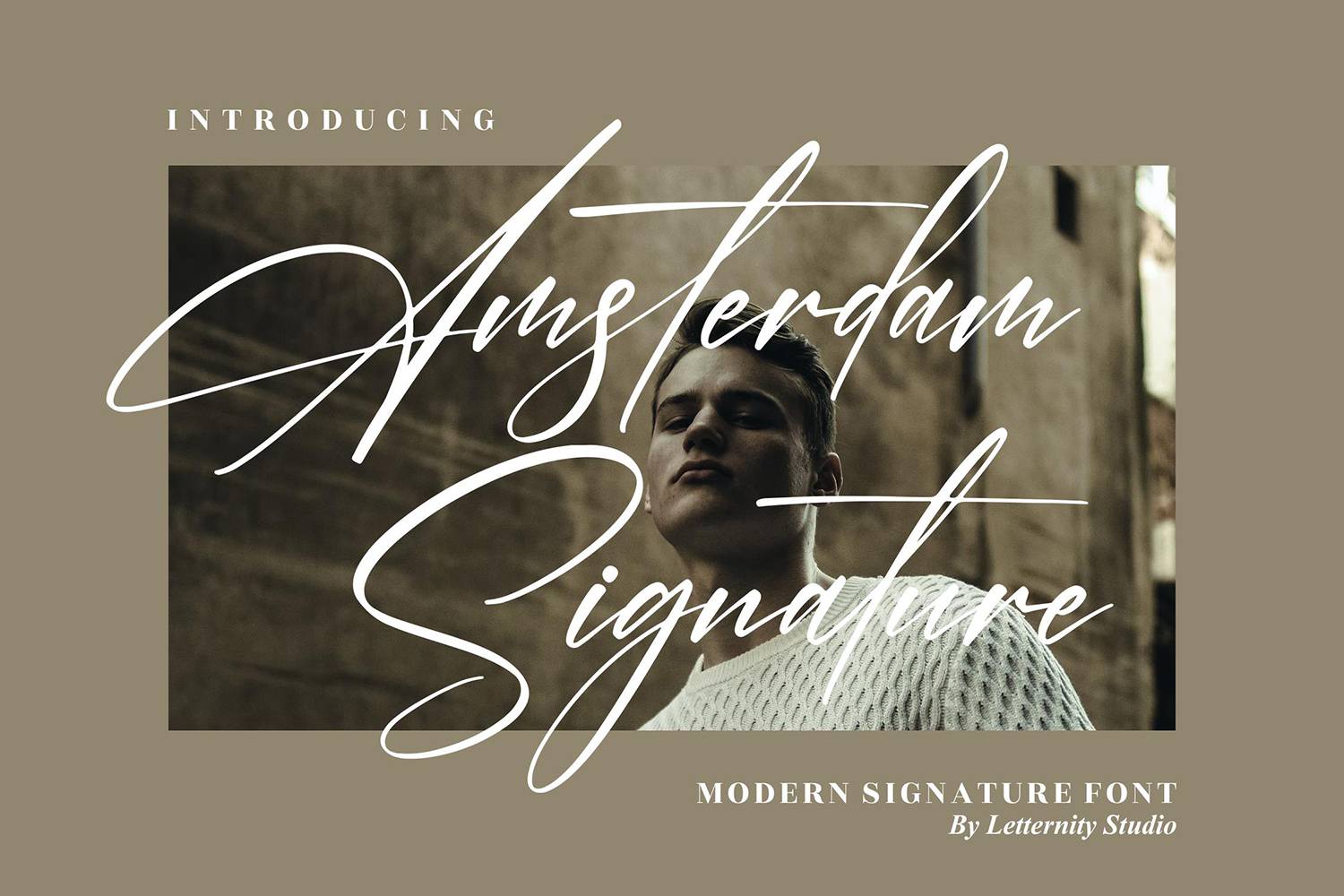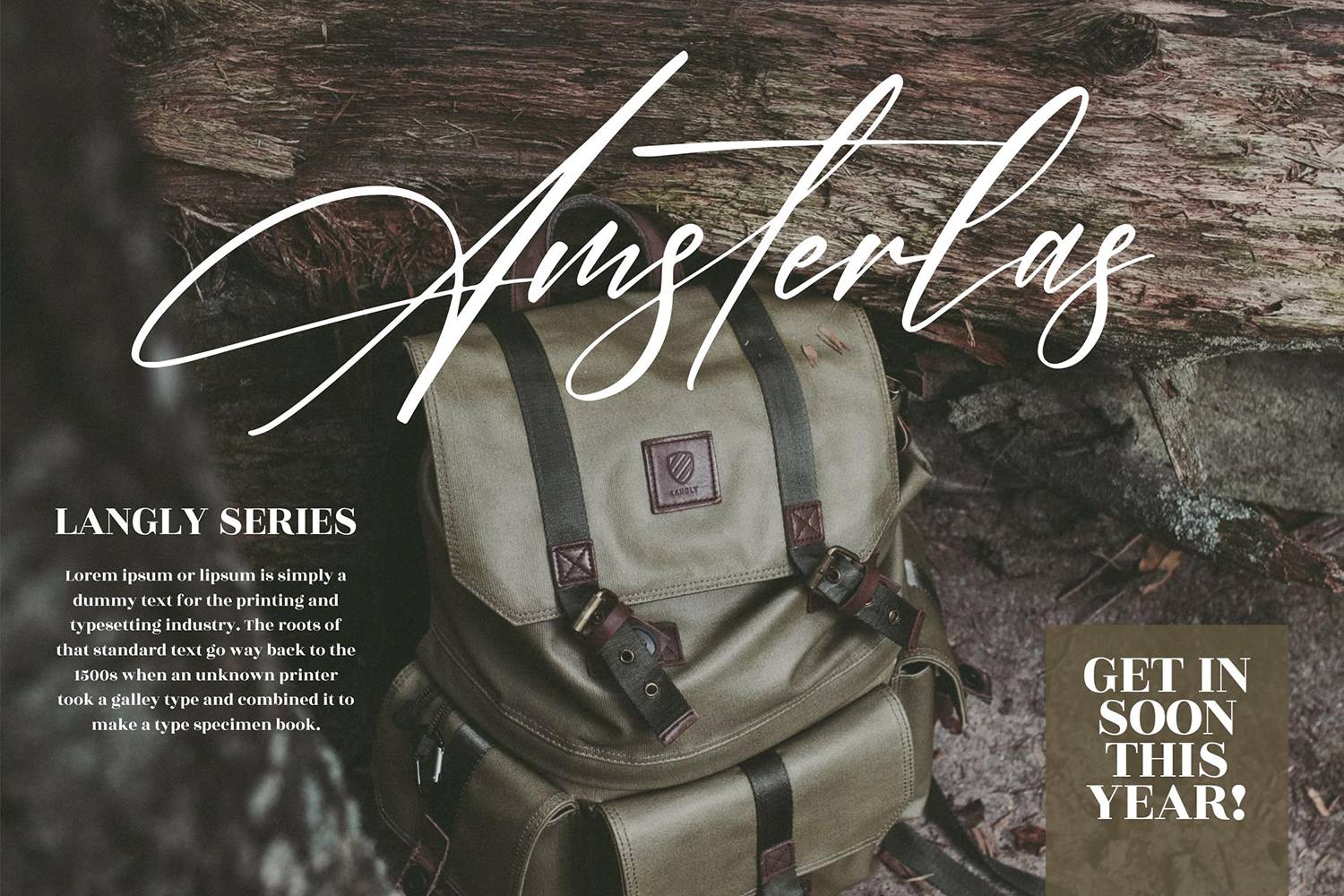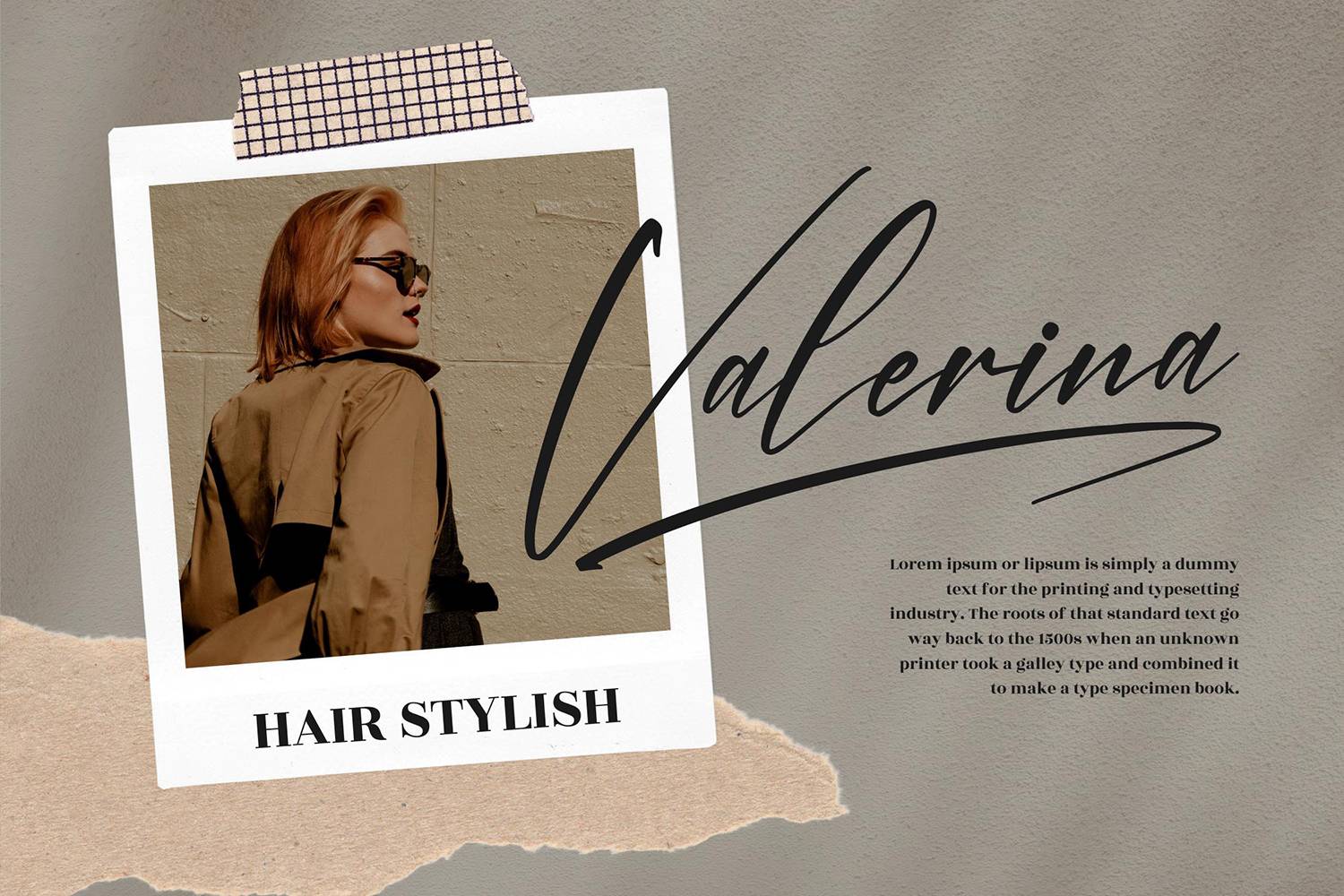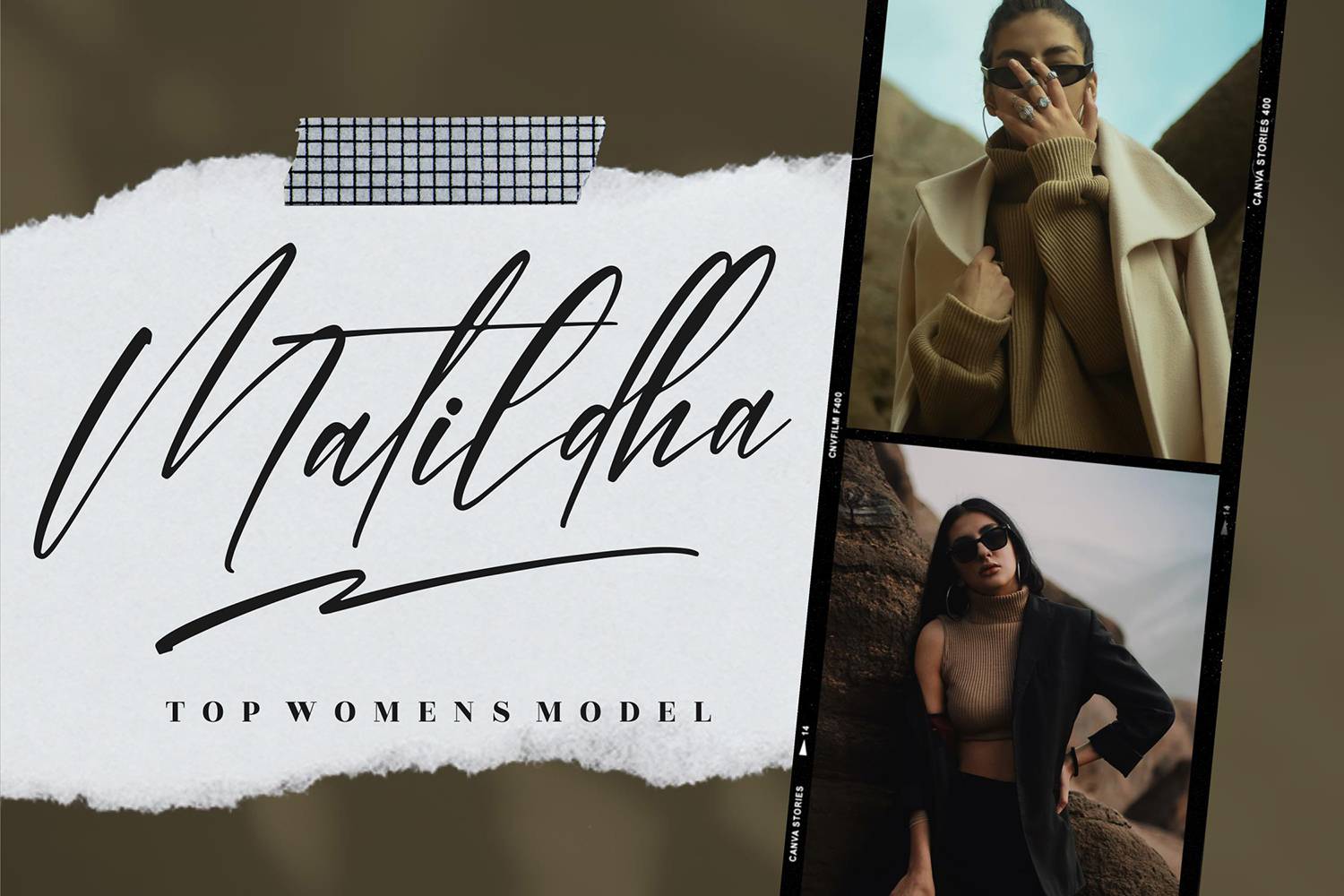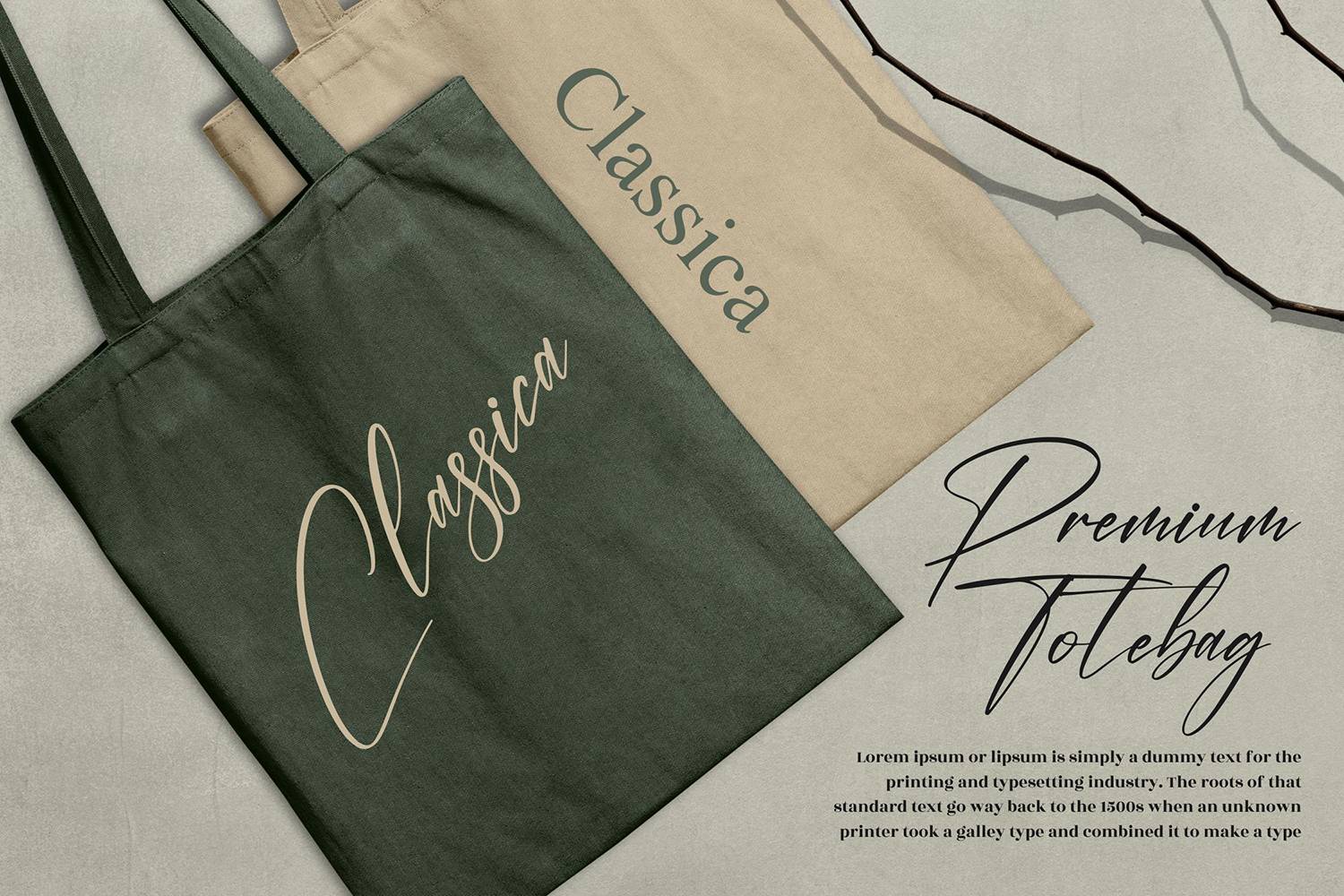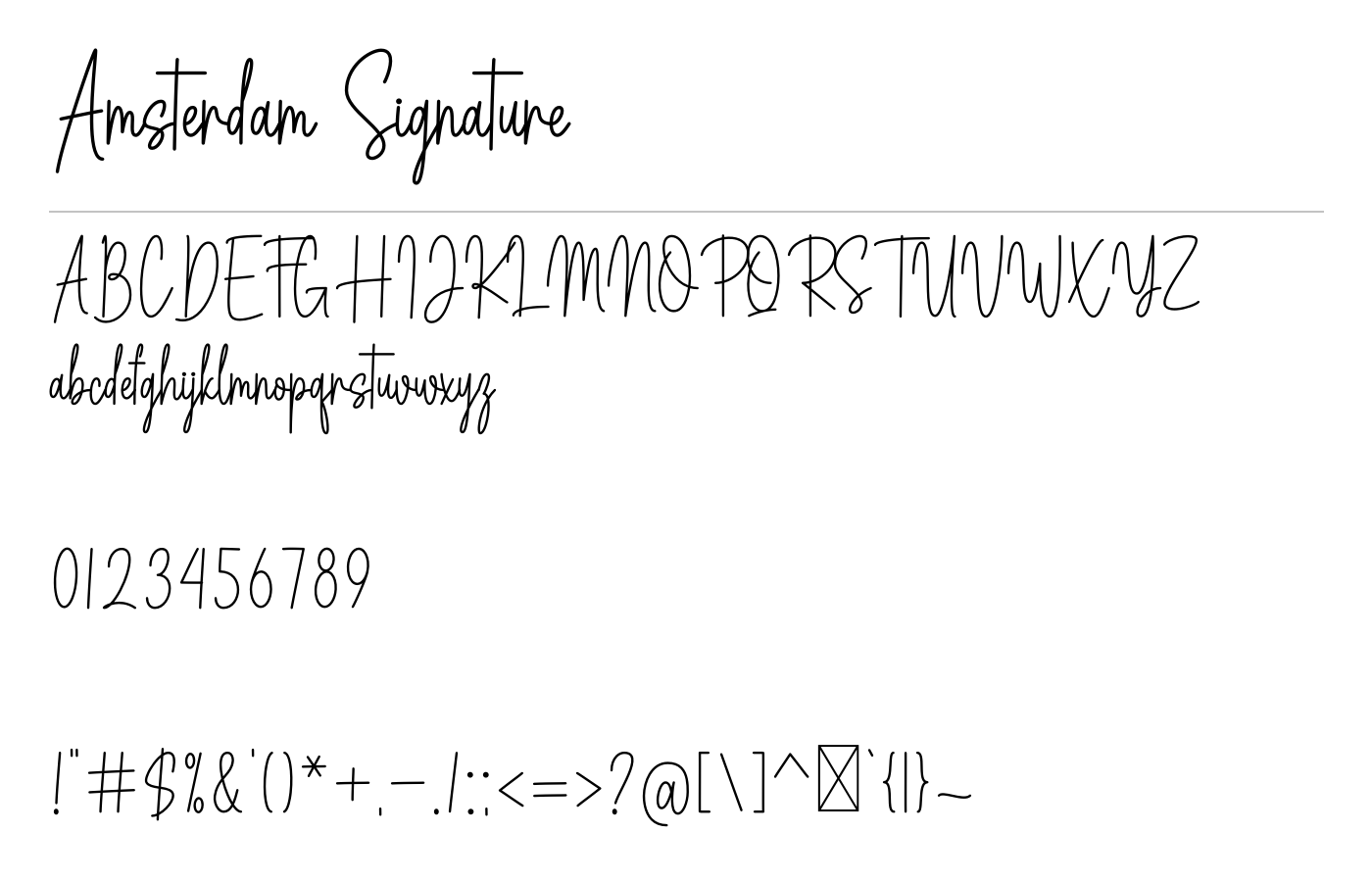
Amsterdam Signature is a delicate, handwritten script font that mimics elegant, casual handwriting with thin, elongated strokes and a tall x-height. Its slender, airy letterforms and smooth flow give it a personal, stylish feel, making it perfect for branding, invitations, logos, or any design seeking a modern, sophisticated, yet approachable touch.
Amsterdam Signature Font
About Amsterdam Signature Font